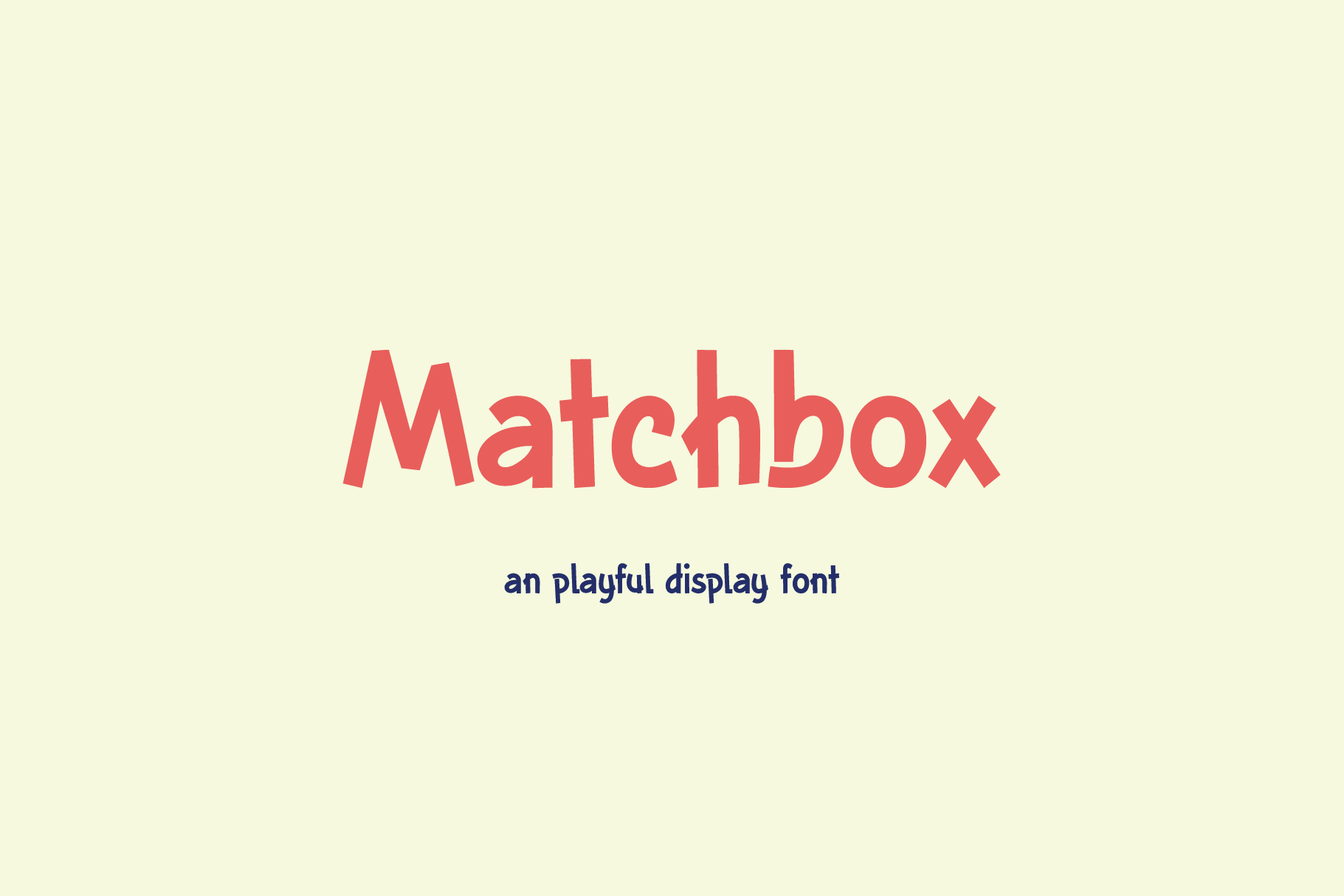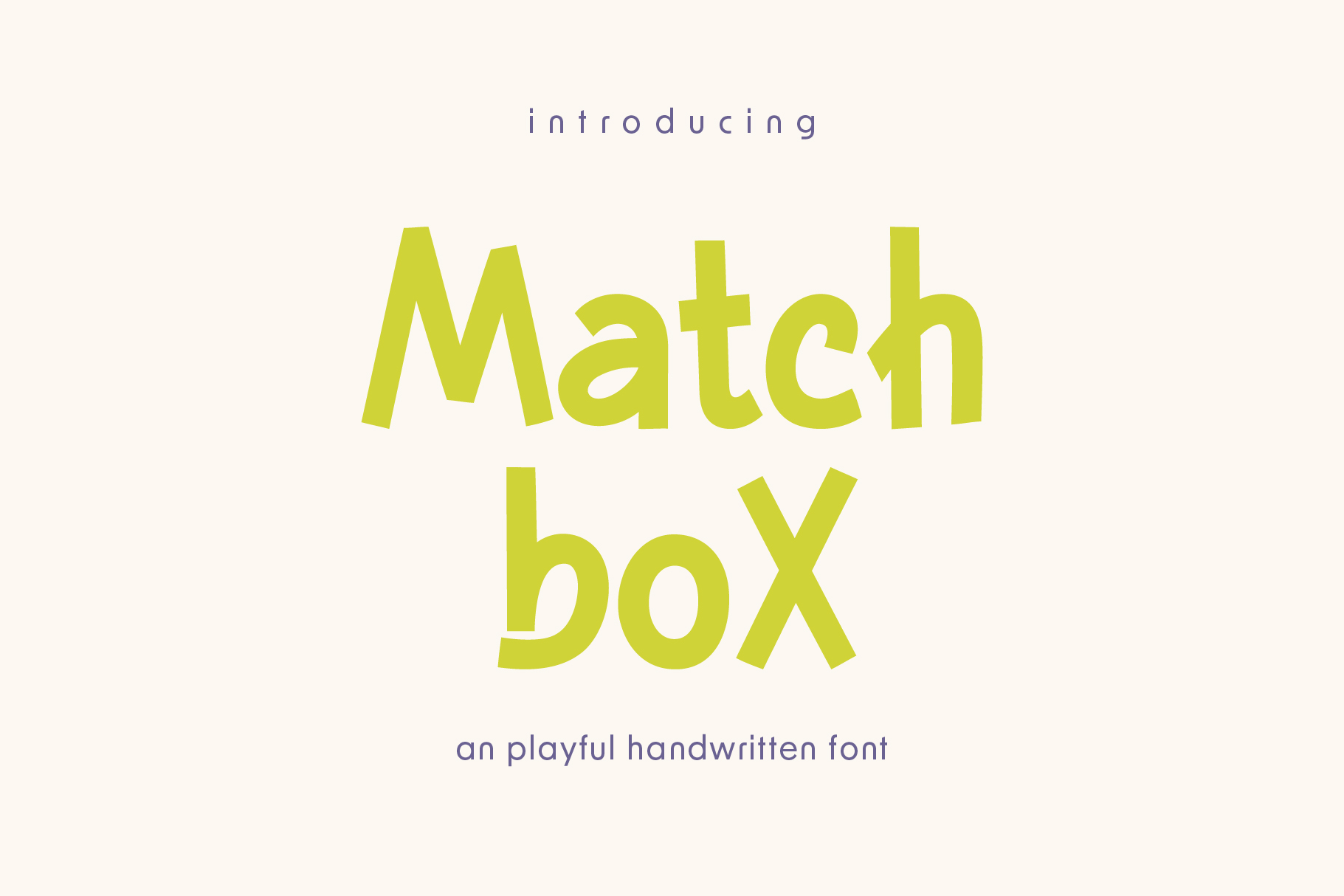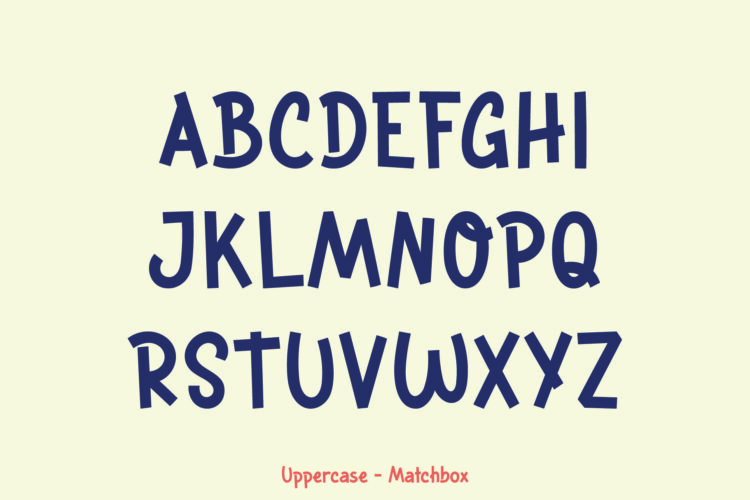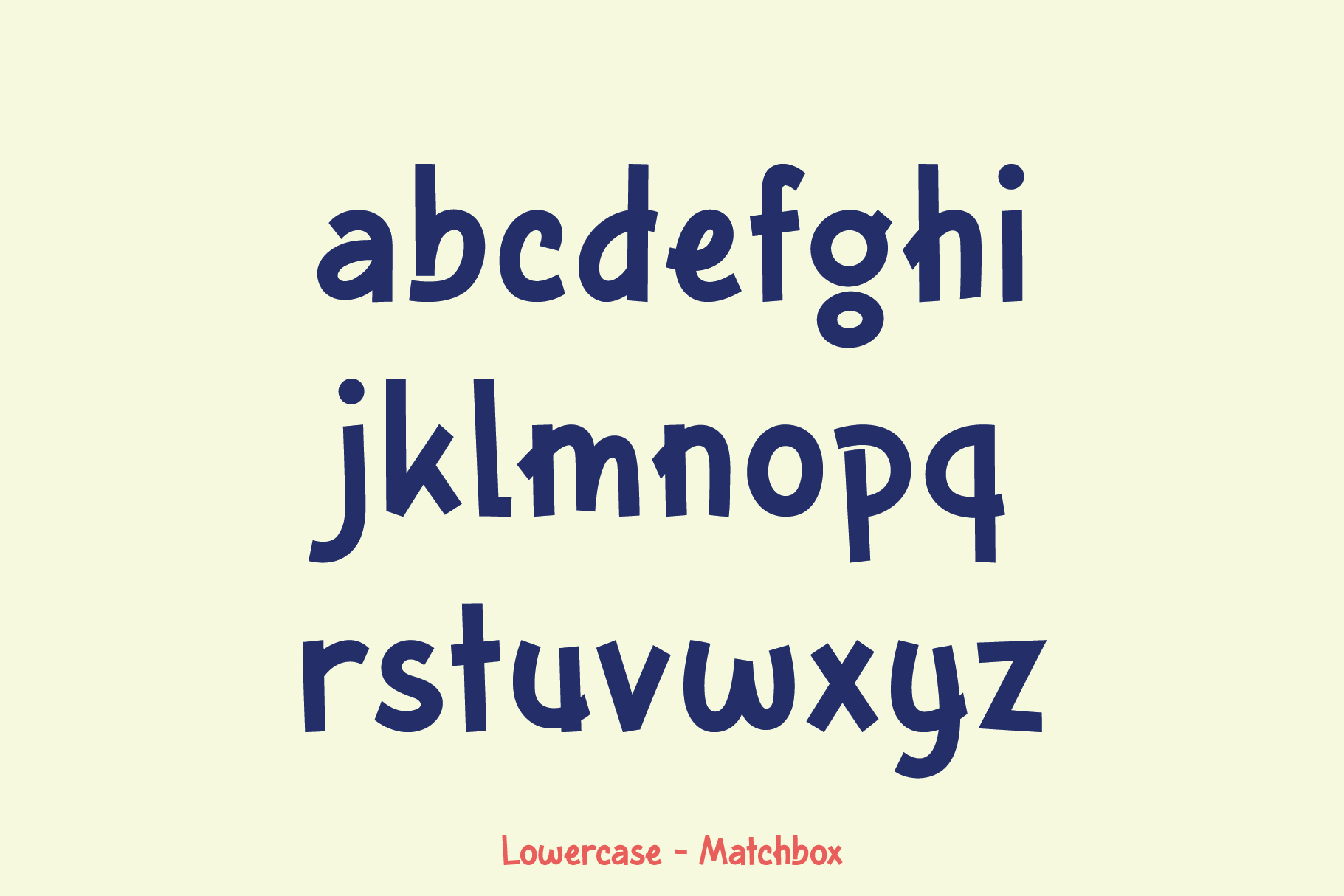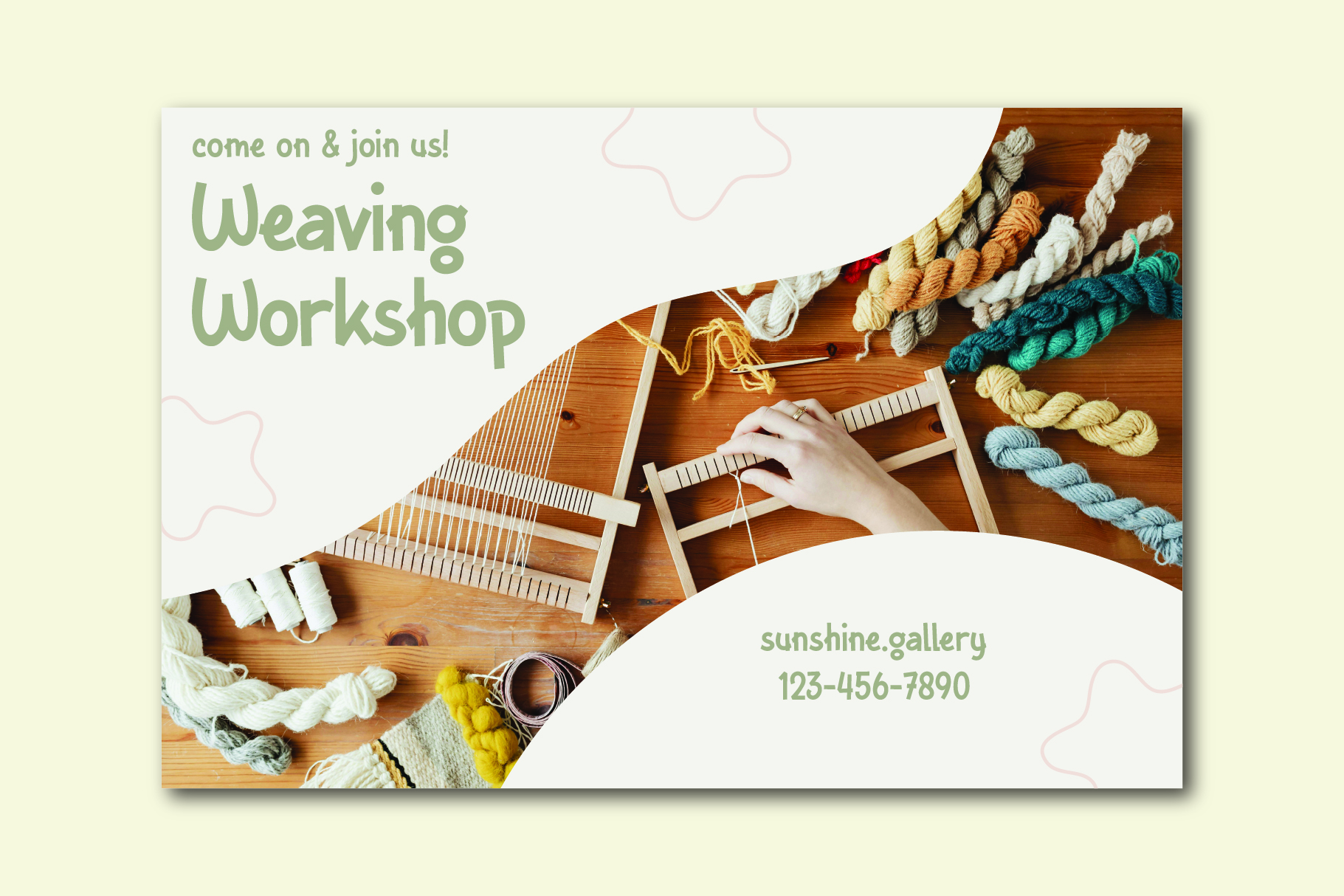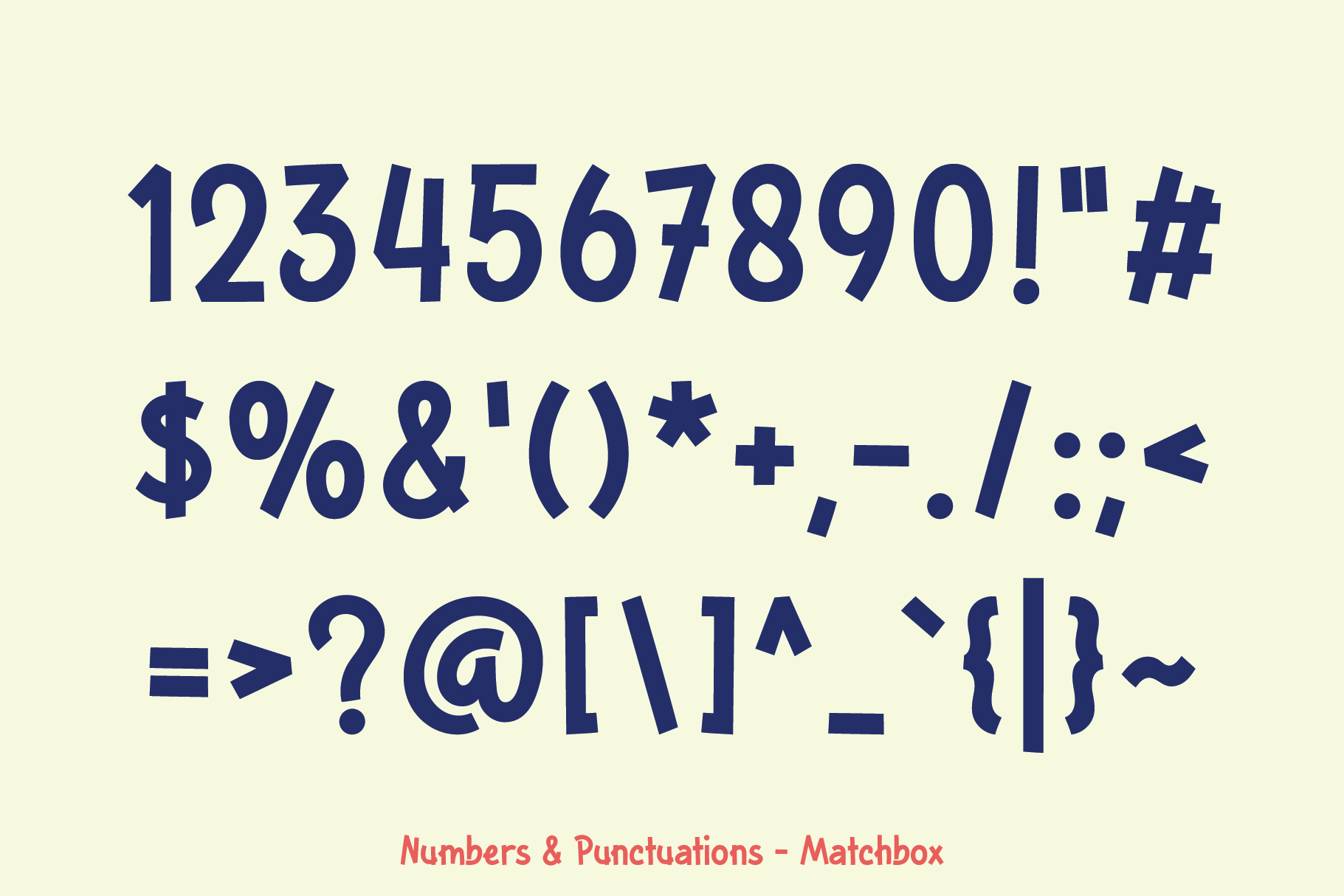
Are you looking for a font that’s fun, playful, and perfect for your next creative project? Look no further than Matchbox! This hand-drawn font is bursting with playful vibes and is sure to add a touch of unique to your designs.
Matchbox is the perfect font for any project that requires a cute and playful style. Whether you’re designing a logo, t-shirt, poster, sticker, mug, or greeting card, Matchbox is the perfect choice
This font available in three formats: TTF, OTF, and WOFF, making it easy to use in any design software. The font includes uppercase and lowercase letters, numbers, and basic punctuation, giving you everything you need to create playful and engaging designs.